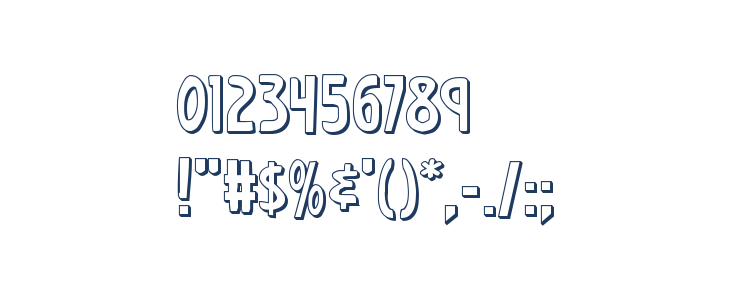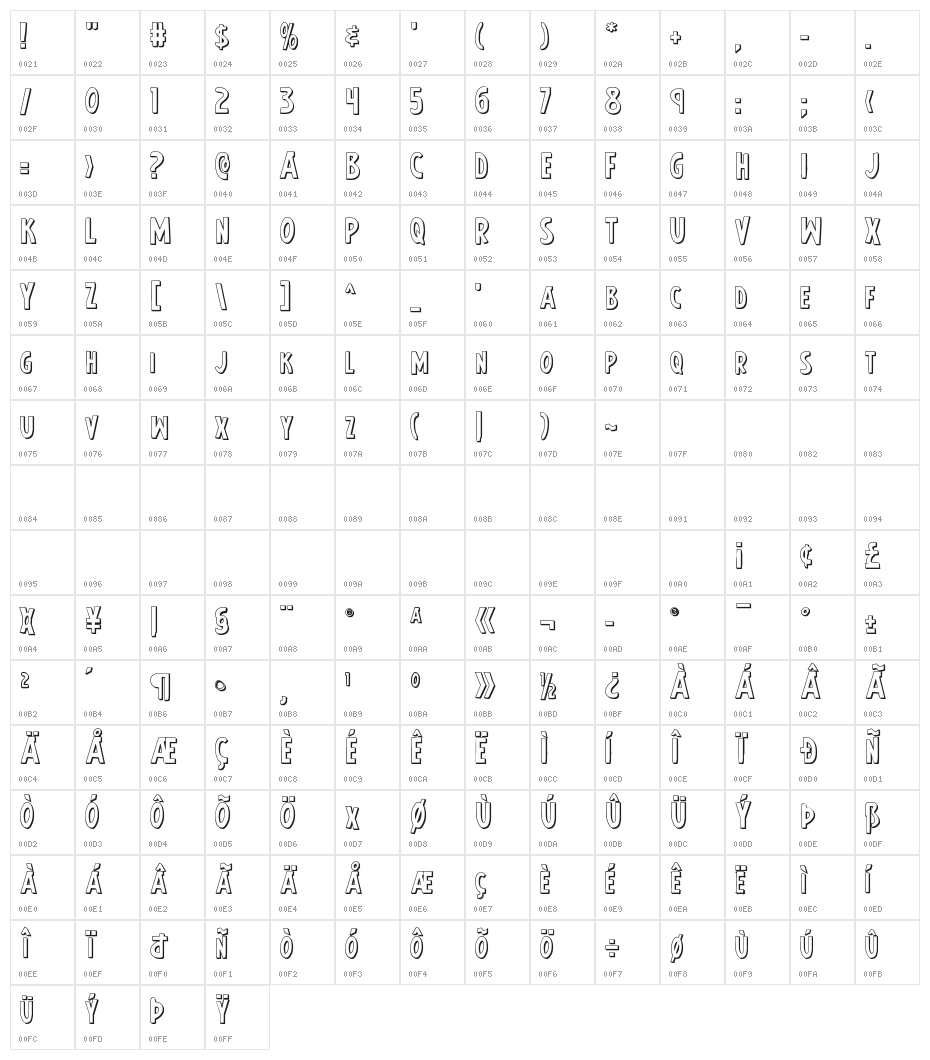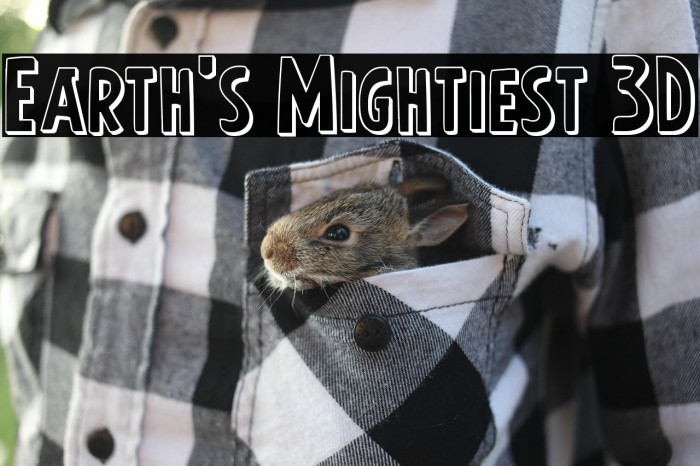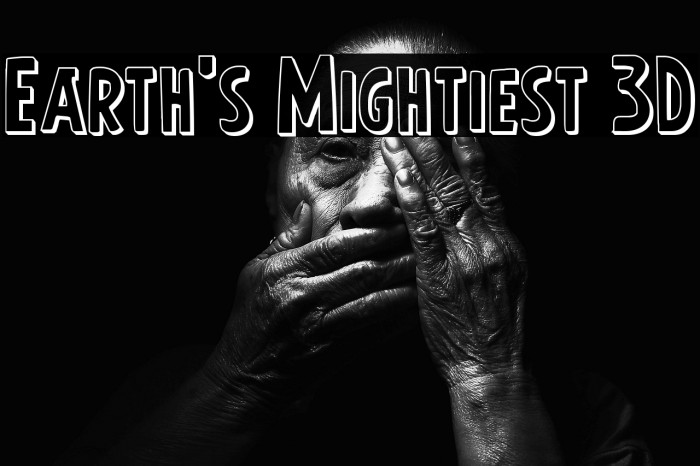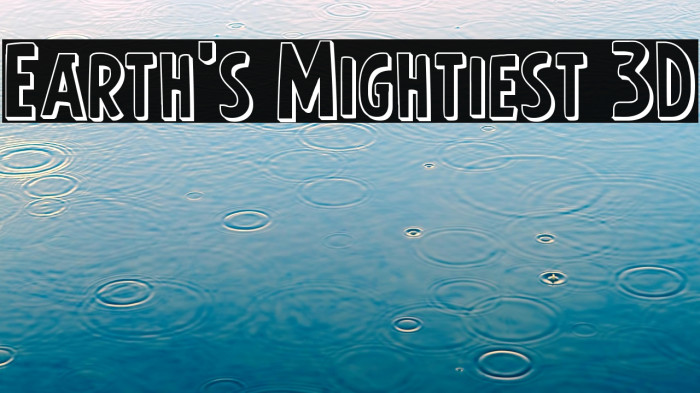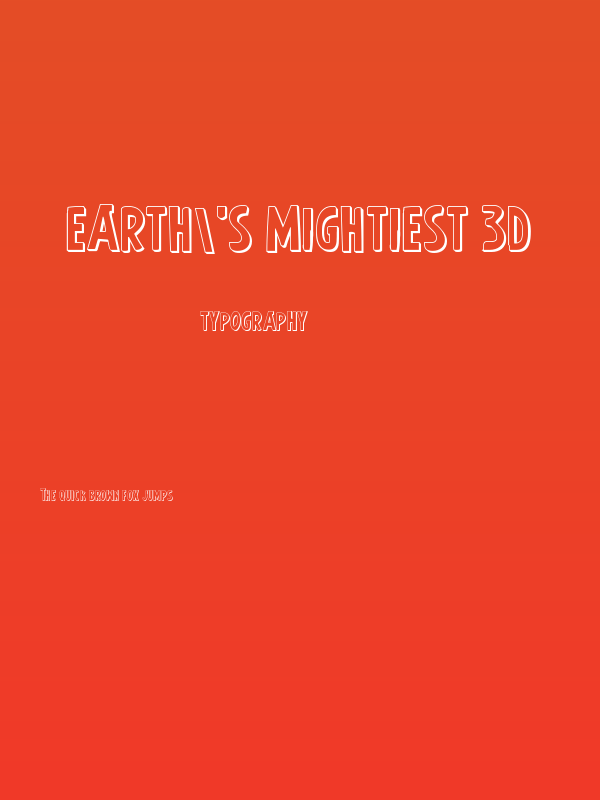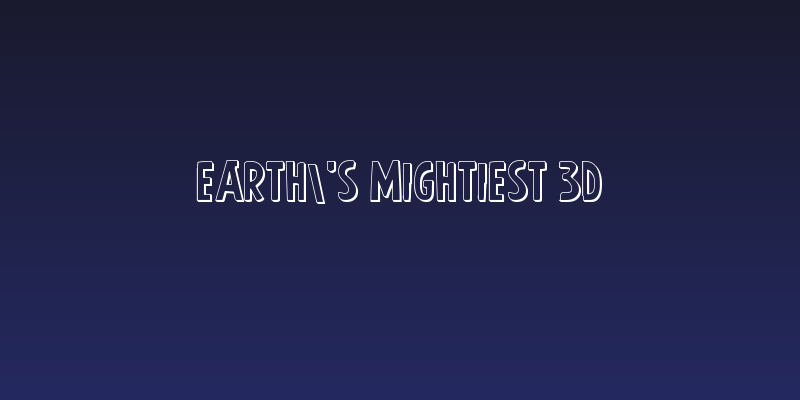
Earth's Mightiest 3D Font
Earth's Mightiest 3D Description
This font features bold, uppercase letters with a playful, three-dimensional effect. The characters have a thick outline that gives them a cartoonish and dynamic appearance, making them stand out with a sense of depth. The style is consistent across all letters and numbers, maintaining a uniform look that is both eye-catching and easy to read. The special characters are designed to match the bold and playful aesthetic, ensuring a cohesive look throughout. This font is ideal for projects that require a fun and engaging visual element.
| Overall Style | Playful, Cartoonish |
| Proposed Projects | Ideal for comic books, children's books, posters, and playful branding projects. |